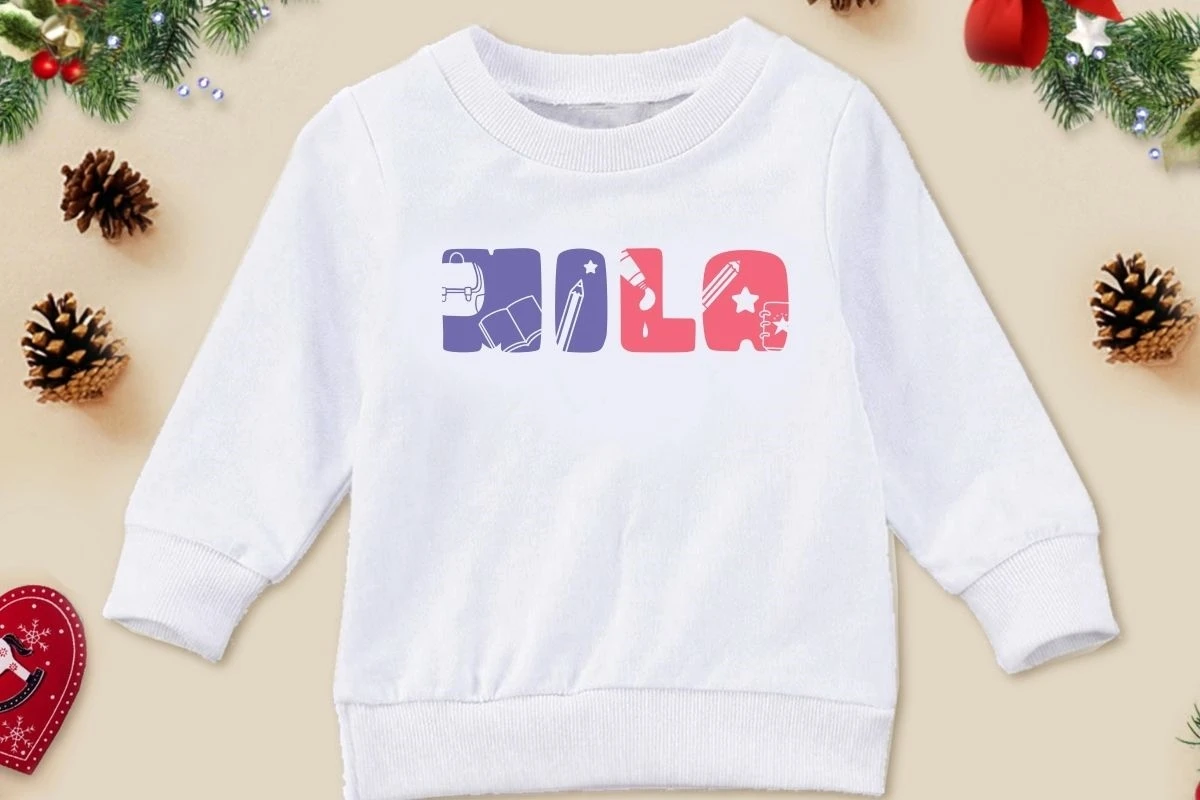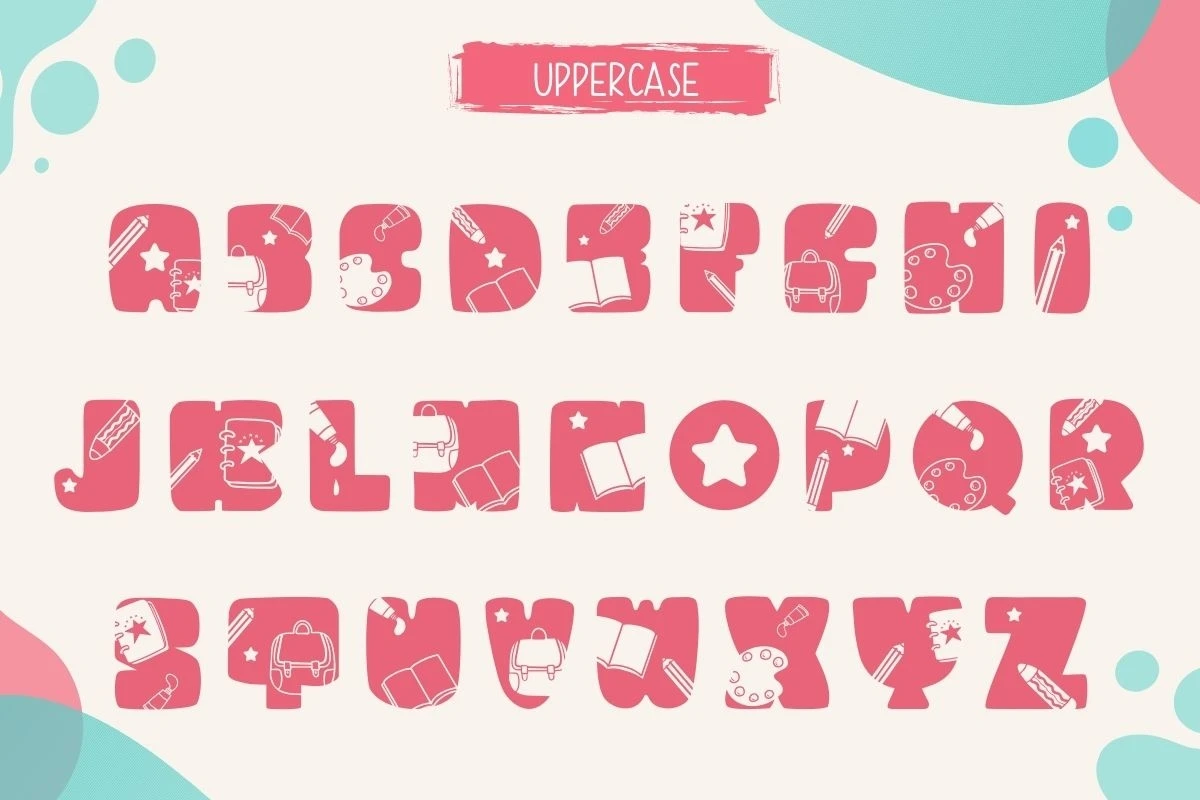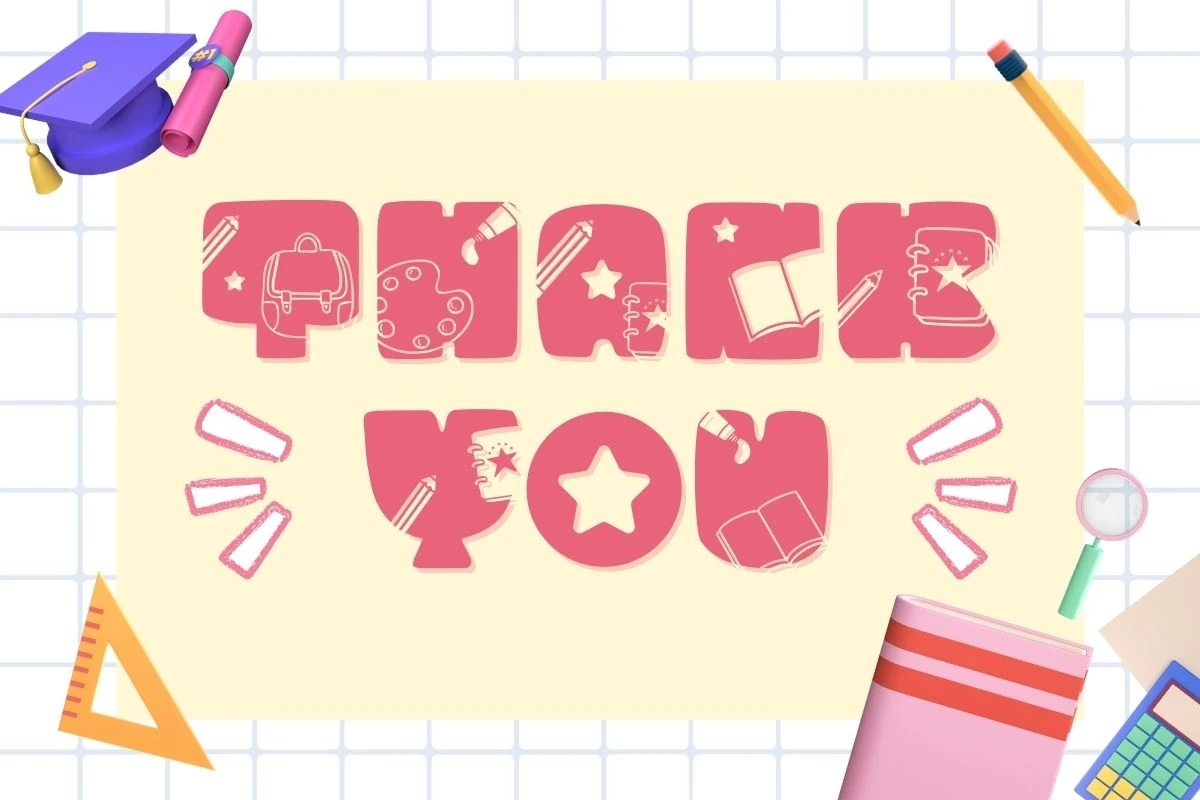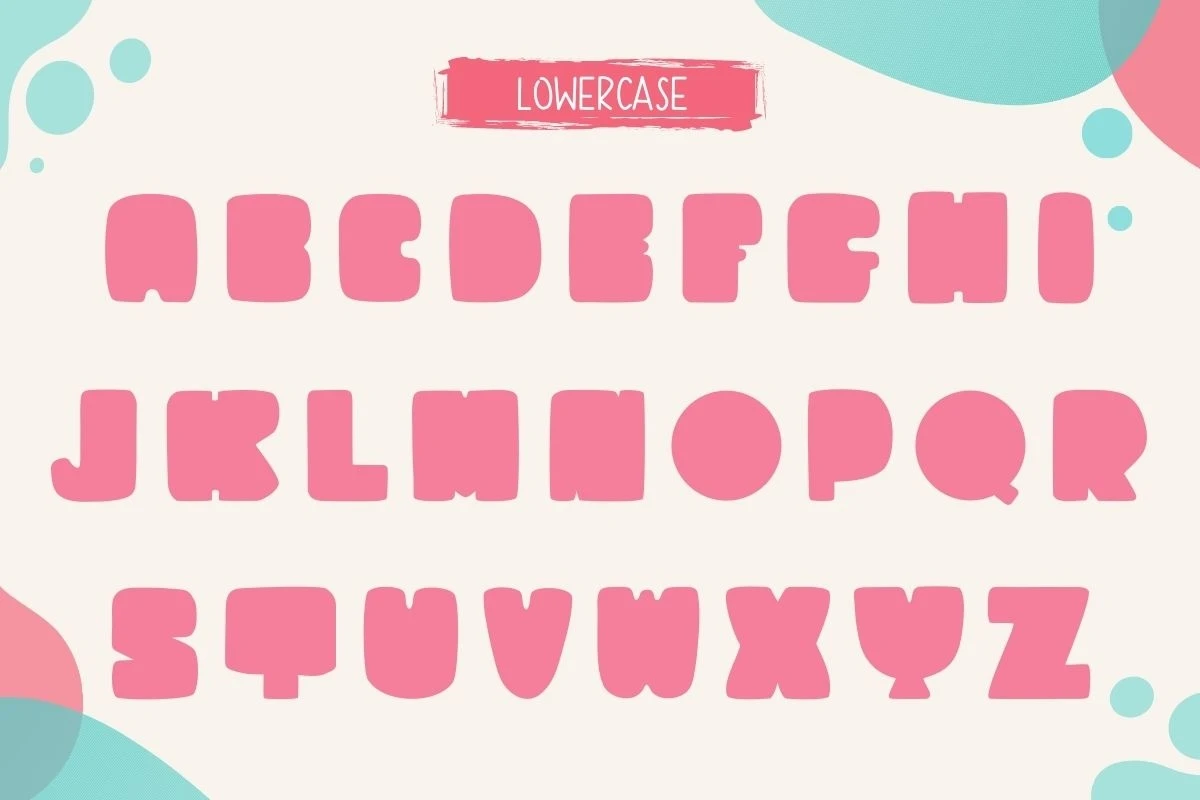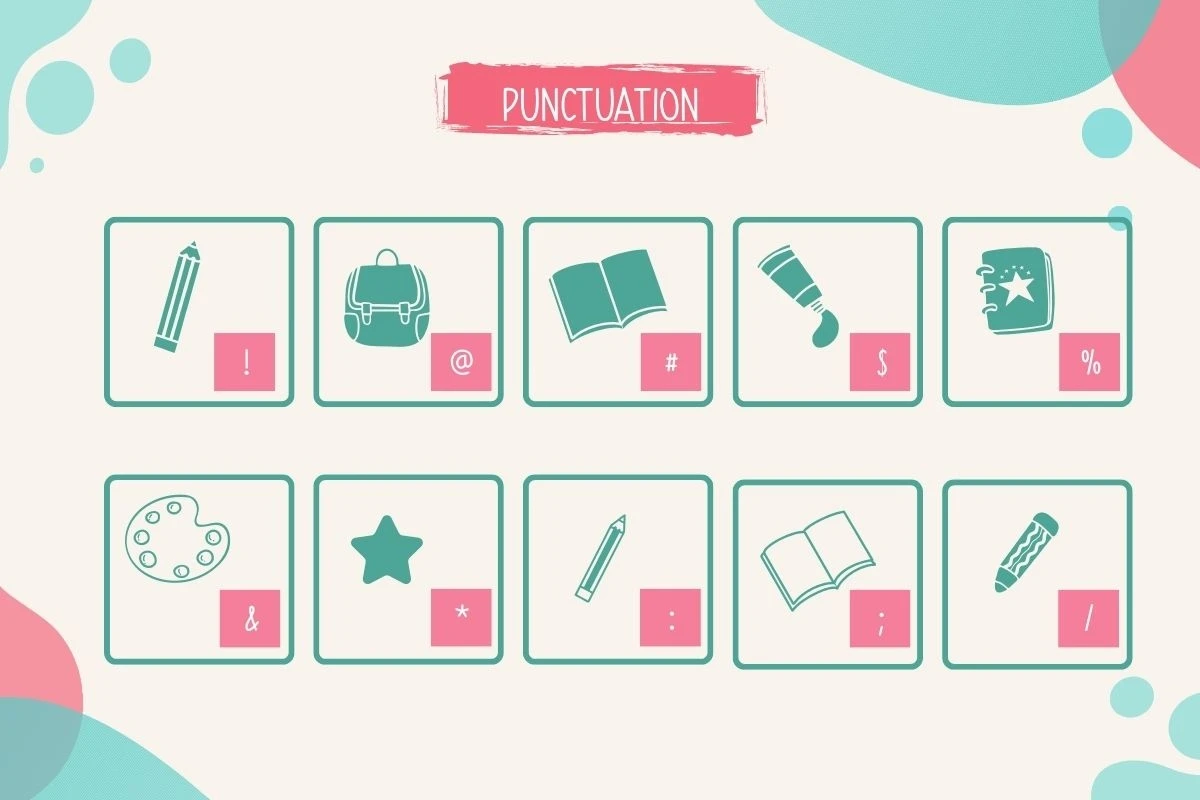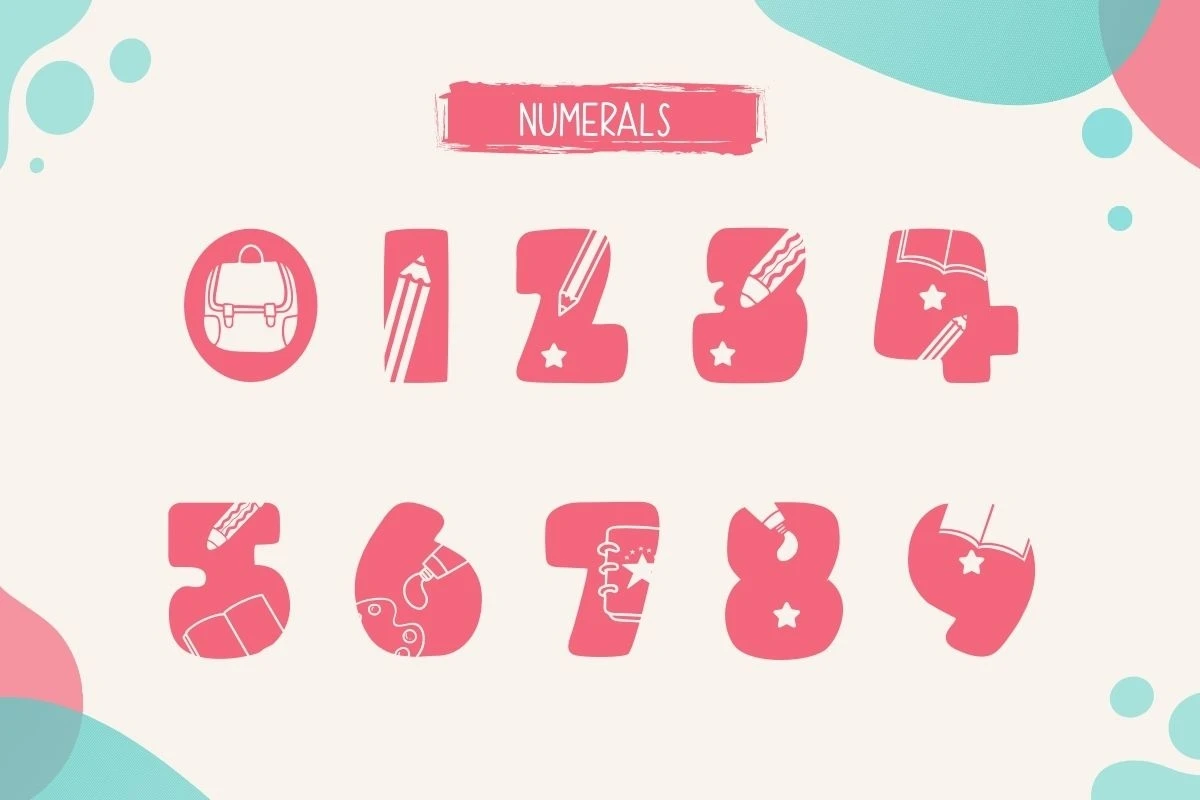
BACK TO SCHOOL is Display Font. This font used a variety of stationery hand drawings combined with bold fonts. This font used a variety of stationery hand drawings combined with bold fonts. This font has a cute and quirky style. Suitable to create a variety of new designs to match the back to school theme such as banners, content, mugs, cards, shirts, beautiful stationary art, social media posts, and much more!